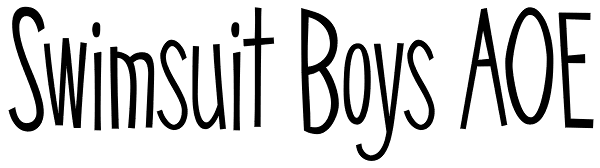
Swimsuit Boys AOE
A thin and playful cartoon font.
Swimsuit Boys AOE
Swimsuit Boys AOE Font
Swimsuit Boys AOE Alt Caps
Swimsuit Boys AOE Alt Caps Font